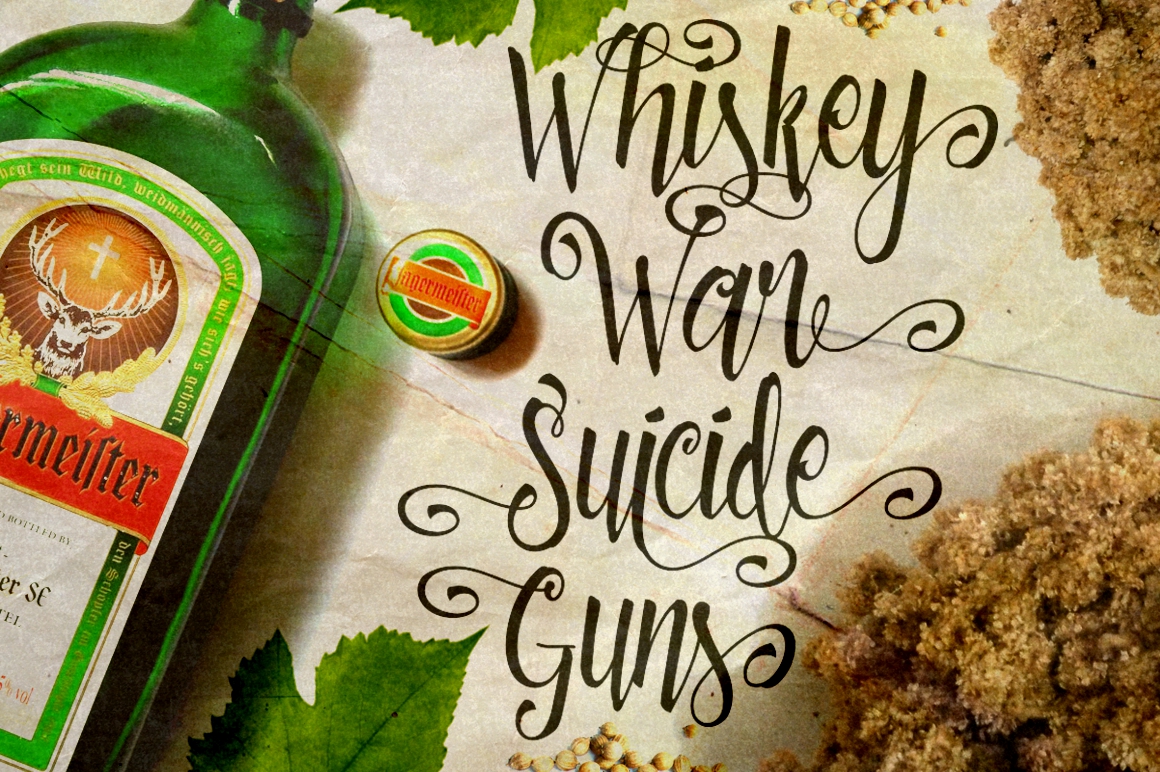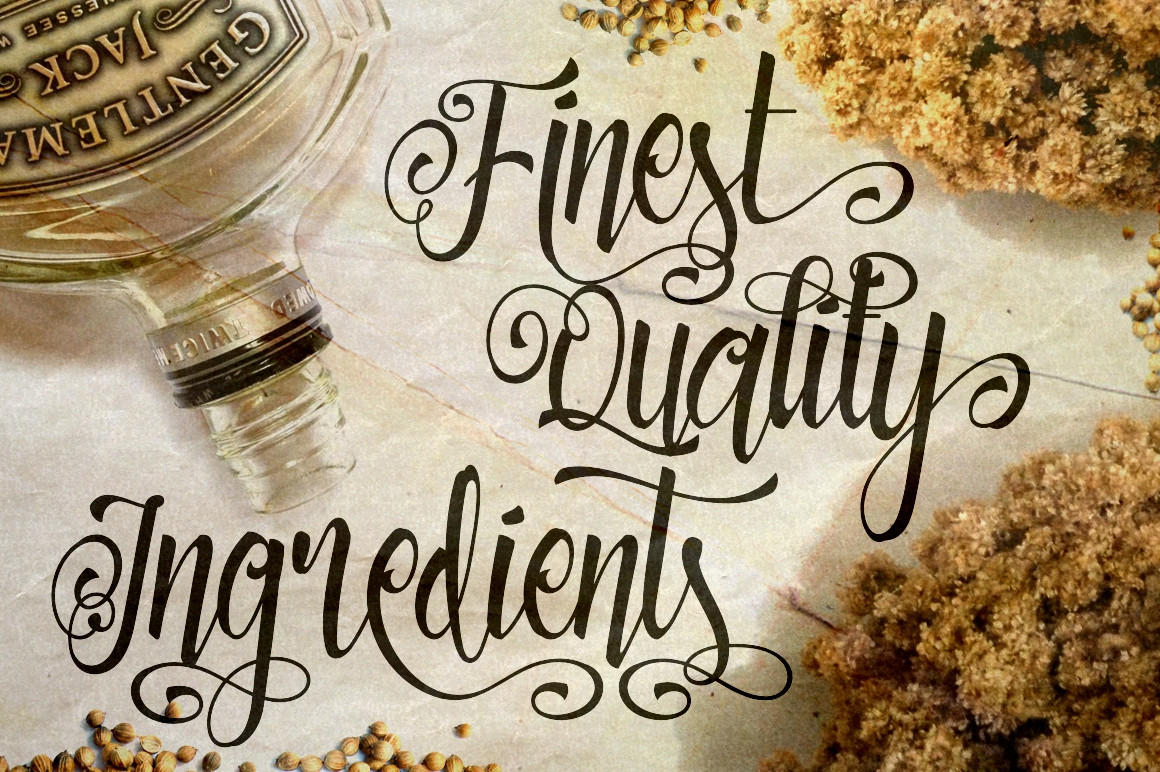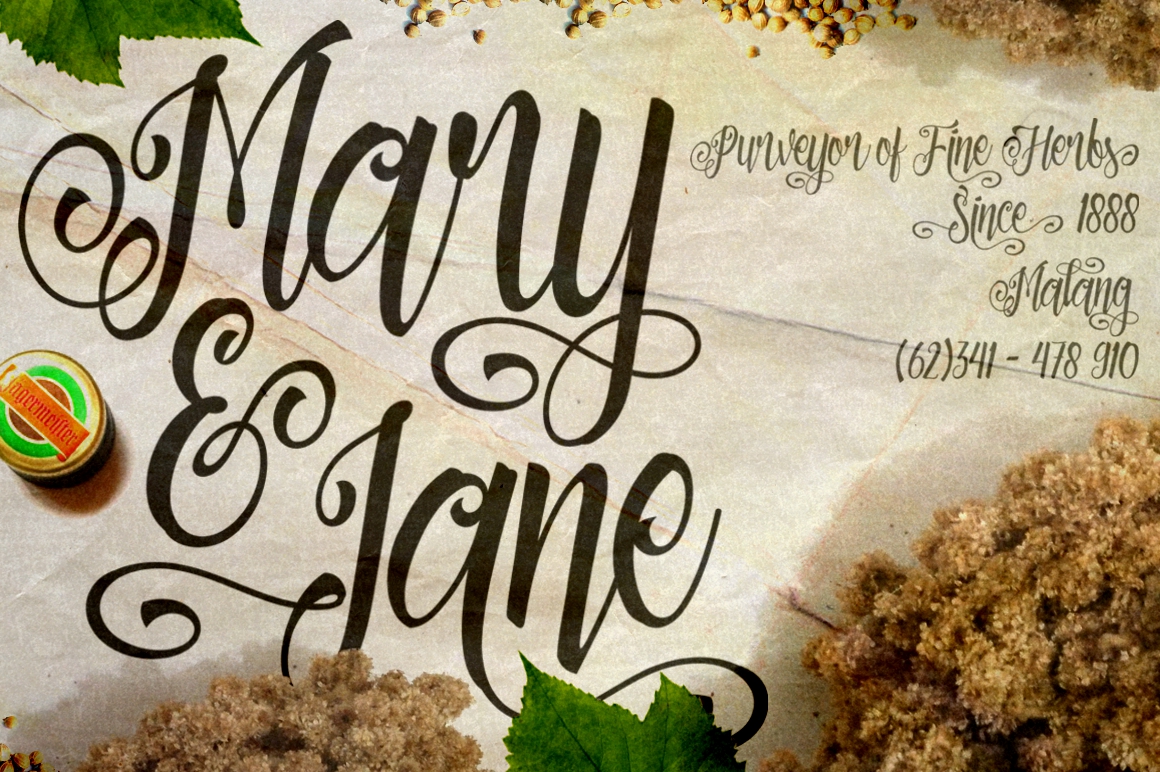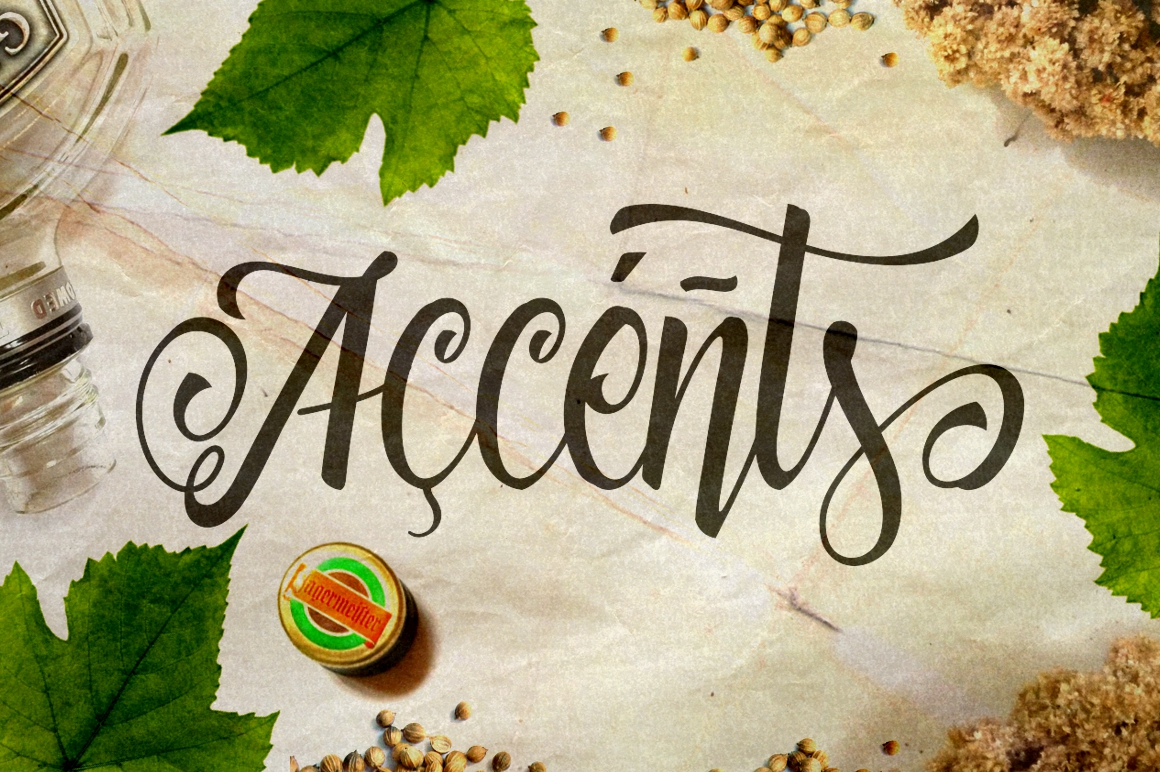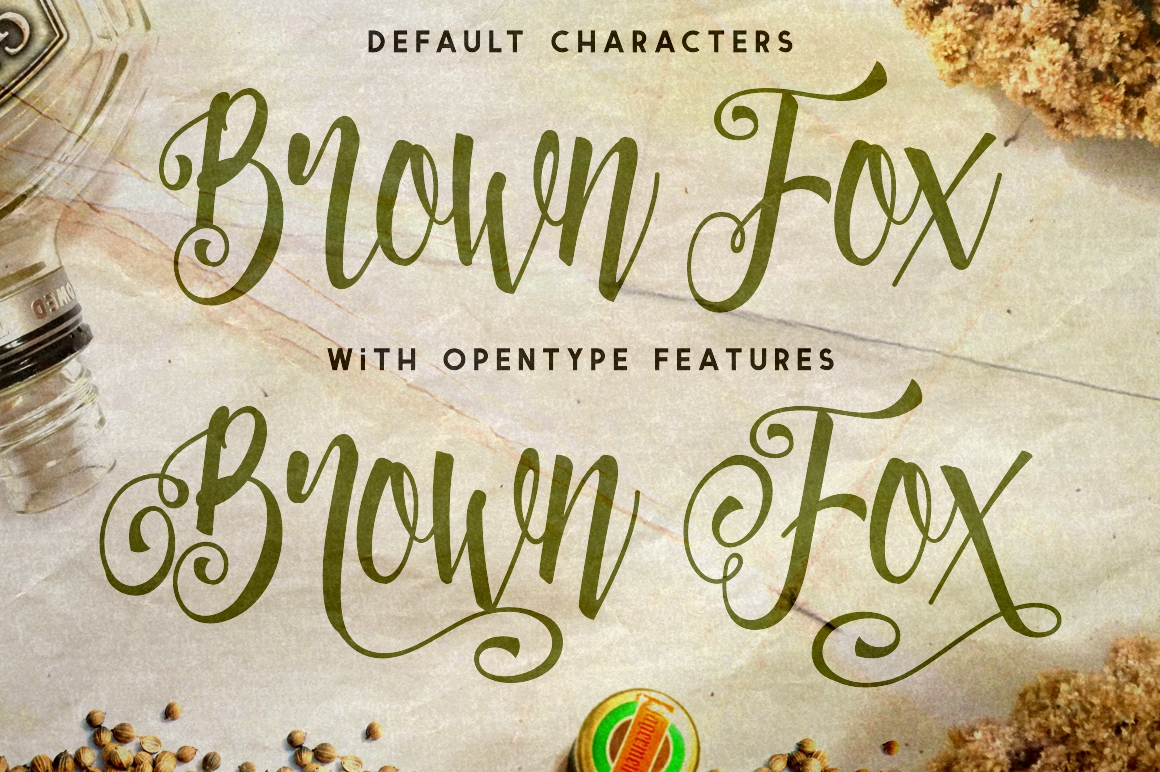
Patronia Font
About Patronia Font
Patronia is a brush-lettering inspired script typeface that combined thick and thin lines, loose and tight kerning and unique baseline combinations for a genuine hanwritten feel. This is a font suited best as a headline, given its intense flourishes and bold design.